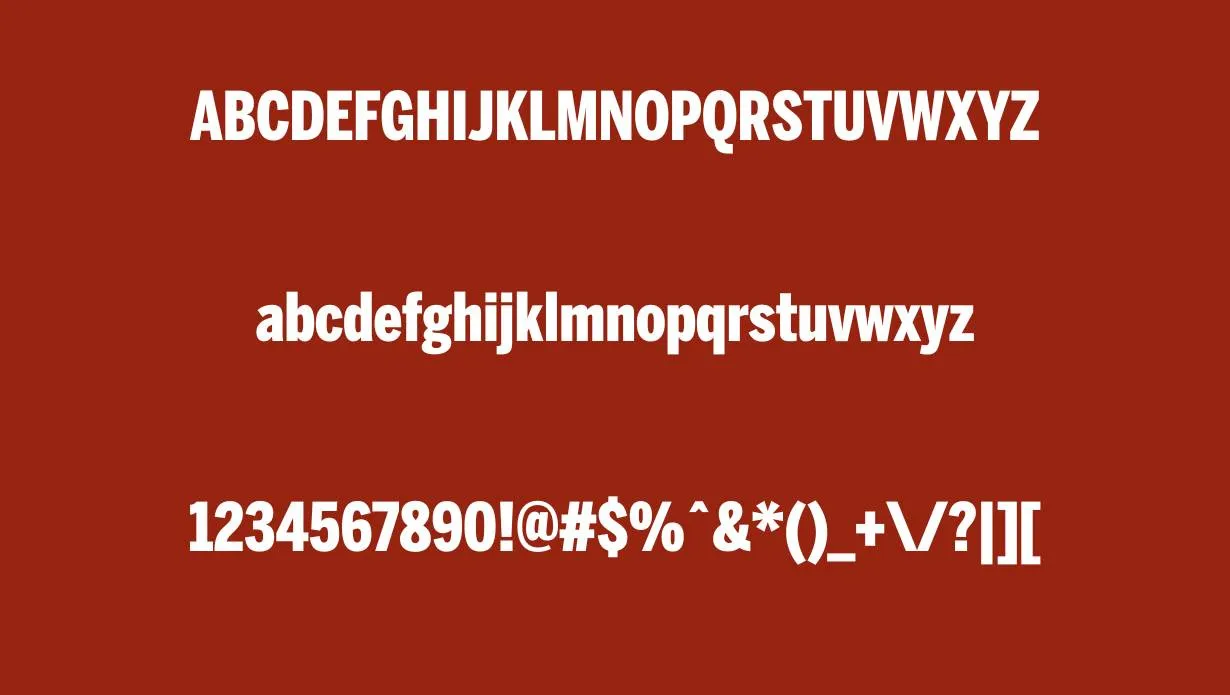
The Benton Sans Extra Comp Black Font is a typographic powerhouse, conveying strength and impact with its bold characters. Ideal for projects that require a commanding presence, this font excels in headlines, banners, or any design where a bold statement is paramount.
| Name | Benton Sans Extra Comp Black Font |
| Designer | Tobias Frere-Jones |